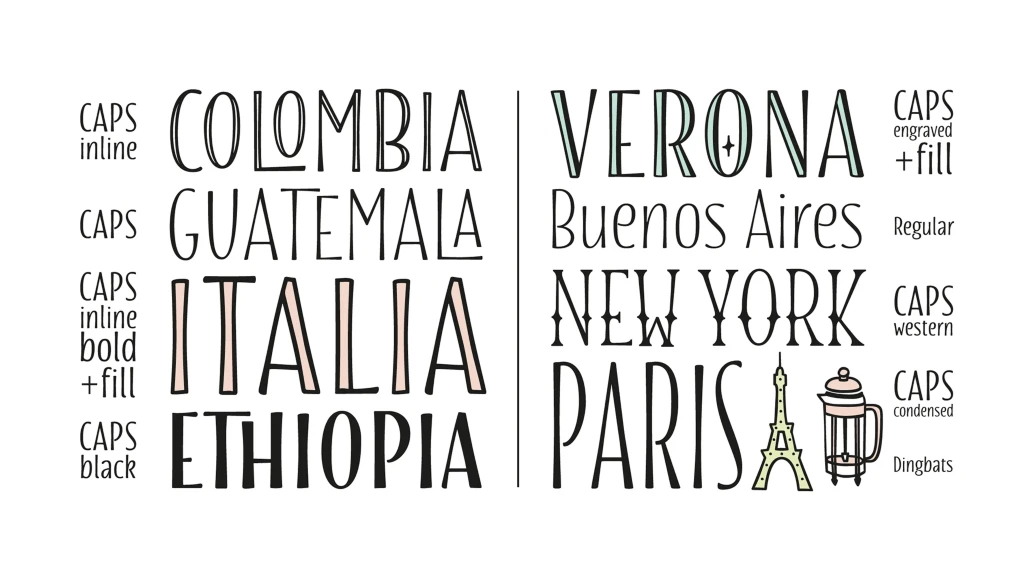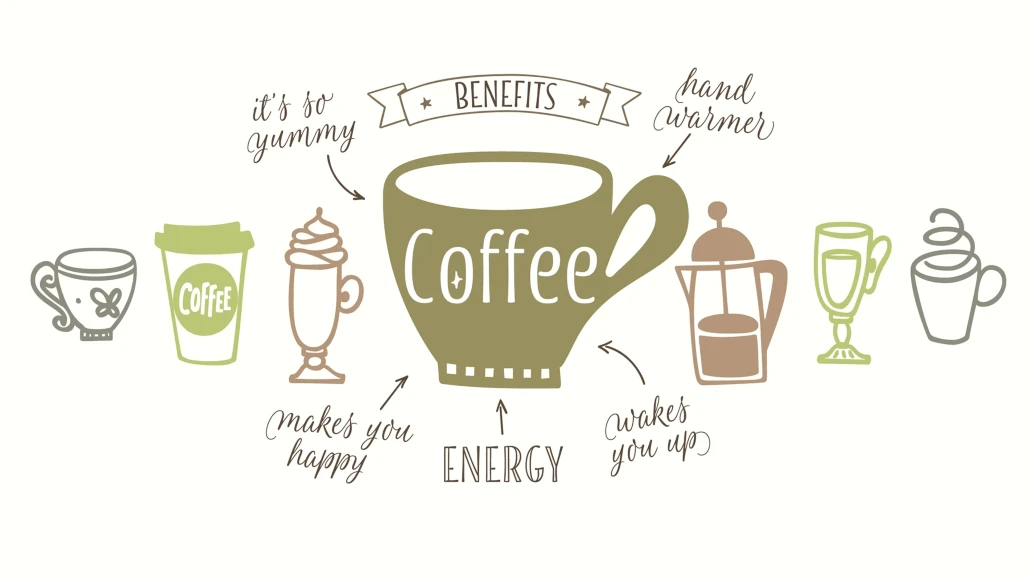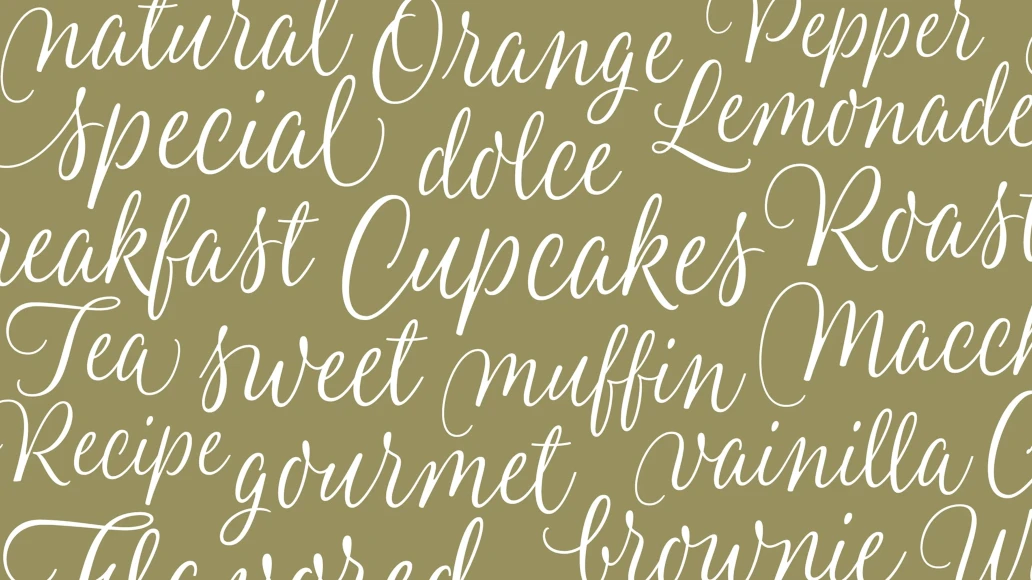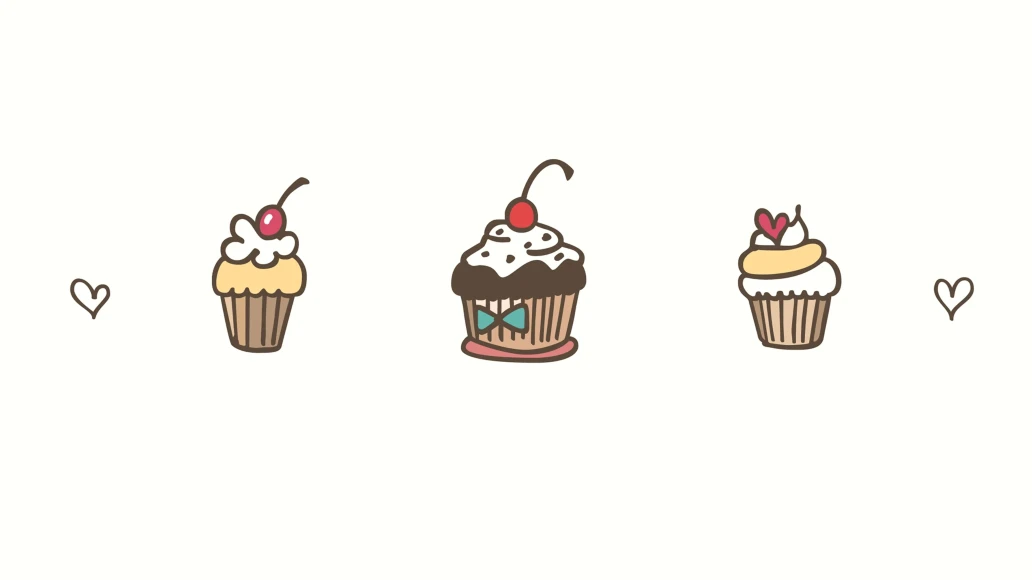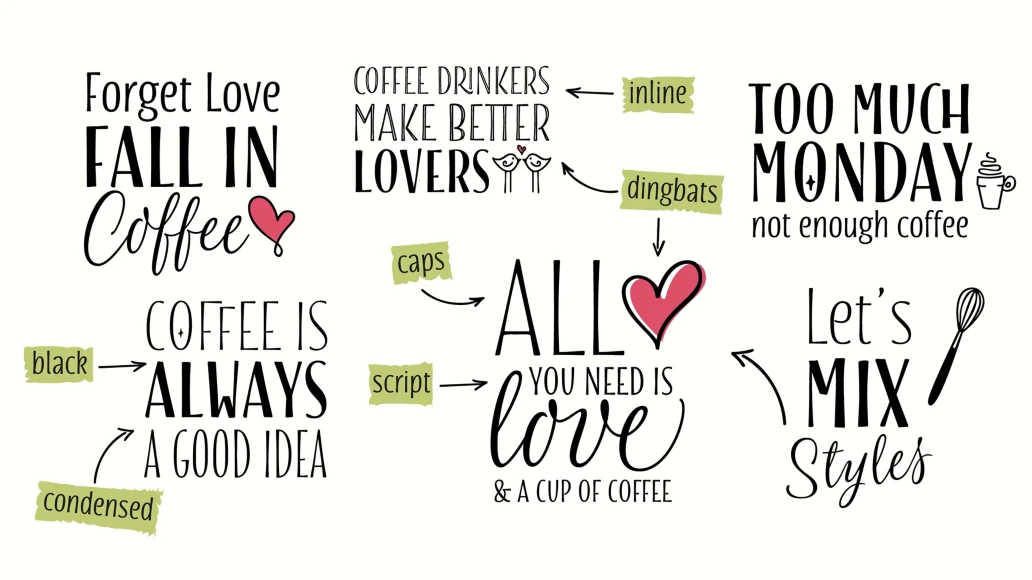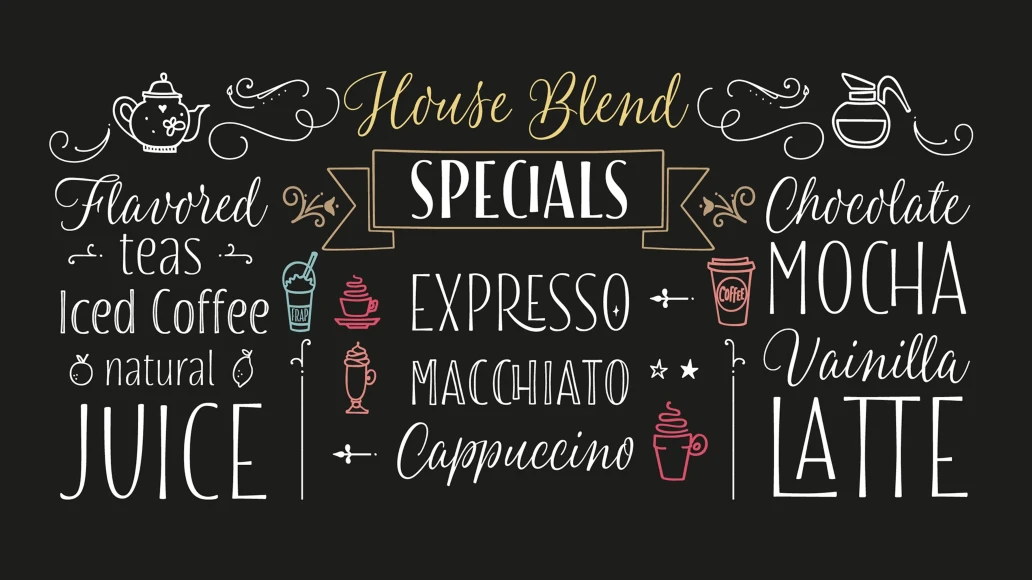
Blend
Blend is a hand drawn collection that takes its cues from the visual universe of bakeries and coffee shops. The name refers to the combining of different kinds of coffee beans to get a balanced taste, and Blend does just that, although here each typographic flavor can also be enjoyed separately. Projects such as branding, children’s books, wedding invitations and labels are sweetened with this cute family.
The bouncing informal Script programmed with Open Type offers a wide range of features like ligatures, swashes, endings, initial forms and lots of alternates. Use professional software that widely support Open Type features. Otherwise, you may not have access to some glyphs. Keep the Standard Ligatures feature always active. For further information about features and alternates, see the User Guide
Blend has extensive Western, Central and Eastern European language support.
Designed by Sabrina Lopez